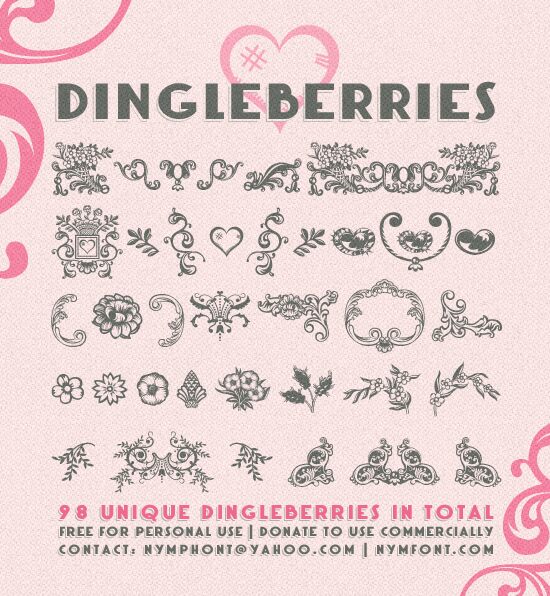
Dingleberries by Lauren Thompson of Nymphont is a free ornamental display font of floral crests, curling leaves, framed cartouches, and romantic emblems. Fine outlines and mirrored flourishes recur throughout, with dense blossoms providing focal points.
As illustrated borders or decorative marks, these ornaments can turn wedding invitations and event posters into vintage-style keepsakes. They also suit boutique packaging and restaurant menus. The frames and botanical sprays can become part of a brand's emblem system rather than ordinary lettering.